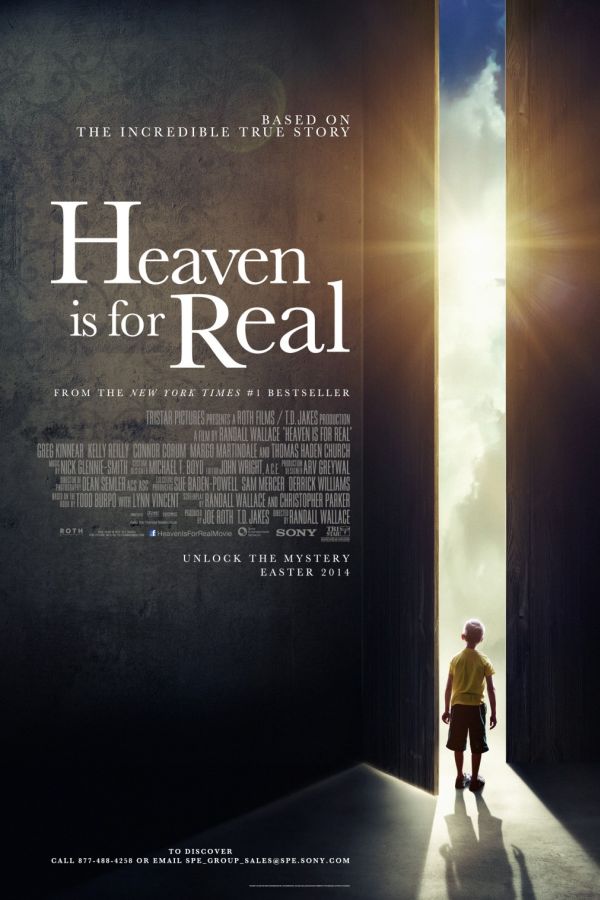
Heaven Is For Real Font
DramaHeaven Is For Real is a 2014 American drama film based on the best-selling book of the same name by Todd Burpo. The film explores the true story of a young boy who claims to have visited heaven during a near-death experience and the impact it has on his family and community.
It is likely that the movie title in the poster uses Baskerville font, a classic serif typeface created by John Baskerville in 1757. You can find further information about it here.